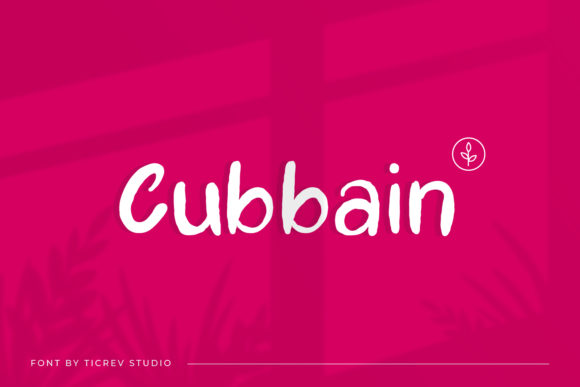
Journey into the world of Cubbain, a display font that oozes charm and approachability, captivating audiences with its natural and distinctive style. This extraordinary creation by OKEVECTOR transcends boundaries, effortlessly adapting to a myriad of design endeavors, limited only by the boundless reaches of your imagination. Prepare to be spellbound as Cubbain elevates your projects to unprecedented heights, transforming them into masterpieces that resonate with your audience.
Unleash your creativity and embark on a typographic adventure with Cubbain, a font that seamlessly blends the allure of tradition with a contemporary twist. Its meticulously crafted characters dance across the page, leaving a trail of elegance and sophistication in their wake. Whether you're crafting captivating logos, designing eye-catching posters, or weaving enchanting stories through digital media, Cubbain stands as your steadfast companion, ready to elevate your designs to breathtaking new realms.
Immerse yourself in the limitless possibilities that Cubbain presents. Its versatility knows no bounds, effortlessly adapting to a symphony of design styles, from the classic and timeless to the bold and unconventional. Let your imagination soar as you explore the endless applications of this remarkable font. Create breathtaking headlines that command attention, design business cards that leave a lasting impression, or craft social media posts that captivate and engage your audience.
With Cubbain as your creative ally, you'll unlock a world of design possibilities, transforming ordinary projects into extraordinary works of art. Its user-friendly nature makes it a breeze to incorporate into your design arsenal, ensuring a seamless and enjoyable experience. Embrace the power of Cubbain and watch as your designs blossom into captivating expressions of your artistry.